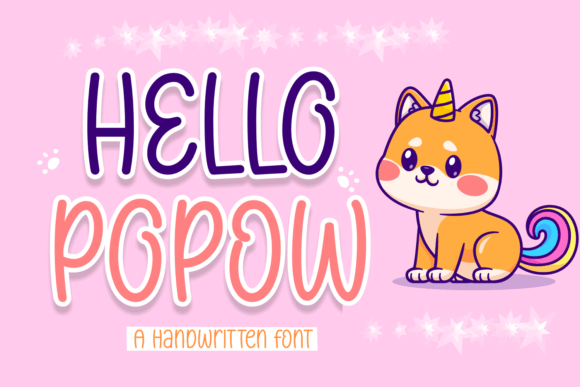
Welcome to the World of Handwritten Delights
Who hasn’t experienced that magical moment when the creative juices start flowing, and all you want to do is create something special? For many of us, it begins with a spark of inspiration, a dash of imagination, and a pinch of love. That’s exactly what happens when you stumble upon the Hello Popow Font – a charming handwritten font that brings a smile to your face and a twinkle to your creative eye.
This adorable font is designed to add a personal touch to your crafts, digital designs, presentations, and greeting cards, making it an essential tool for designers and crafty enthusiasts alike. The Hello Popow Font is more than just a font – it’s a way to express yourself, to tell stories, and to connect with others through the beauty of handwritten letters.
Hello Popow Font Key Features
- Font Family: Hello Popow is a sans-serif font family, designed to be modern and versatile.
- Size: The font family includes a range of weights, from Light to Black, allowing for flexibility in design and typography.
- Resolution: Designed for high-resolution displays, Hello Popow font is optimized for use at 300 DPI and above.
- Unique Characteristics: The font features a unique blend of geometric and organic elements, resulting in a distinctive and eye-catching design.
Designer Review: Hello Popow Font
Overall, I think Hello Popow Font is a unique and fun choice for designers. It’s a script font that exudes a playful, hand-drawn feel that’s perfect for creative projects.
- ✨ Versatility: Hello Popow Font is suitable for a wide range of projects, from branding and advertising to digital products and print materials.
- ✨ Expressive feel: The font’s irregularities and quirks give it a human touch that’s hard to replicate with more formal fonts.
- ✨ Customization options: Hello Popow Font comes in various weights and styles, allowing designers to experiment with different looks and feels.
- ⚠️ Limited legibility: At smaller font sizes, the font’s irregularities can make it harder to read, especially for those with vision impairments.
- ⚠️ Overuse: The font’s playful feel can quickly become overwhelming if used excessively in a single project.
Despite these limitations, I think Hello Popow Font is a great addition to any designer’s toolkit. Its unique personality and versatility make it a great choice for designers looking to add some creativity to their projects.
The Hello Popow font is perfect for creating playful, eye-catching headings or titles. It’s also great for adding a touch of whimsy to children’s books, party invitations, or other creative projects. Use the font to add a unique touch to your designs and stand out from the crowd.
Alternatives to Hello Popow Font for Designers
Great Vibes is a beautiful, handwritten font perfect for creating a friendly and approachable atmosphere. It’s ideal for use in greeting cards, posters, and social media graphics. Great Vibes is more elegant and refined compared to Hello Popow Font, which has a more casual and playful feel.
Alex Brush is a high-end, handwritten font that’s perfect for luxury brands and high-end designs. It’s ideal for use in invitations, business cards, and product packaging. Compared to Hello Popow Font, Alex Brush has a more sophisticated and elegant feel, making it suitable for more formal designs.